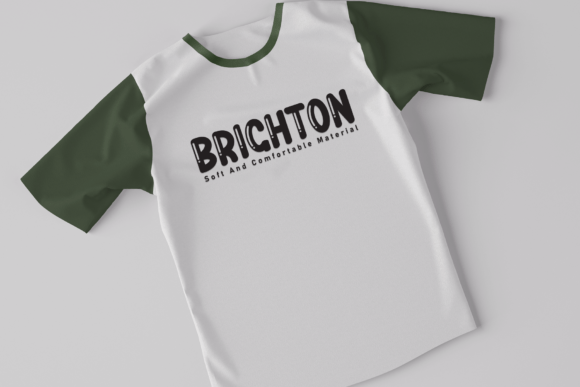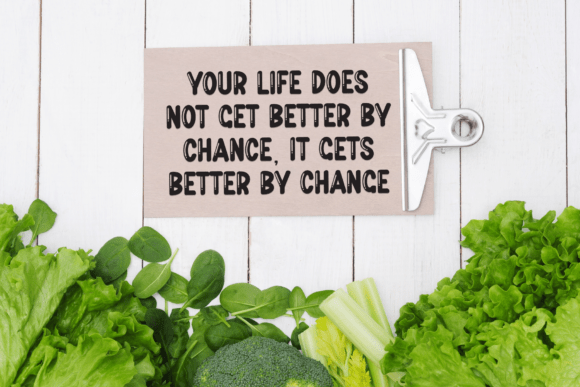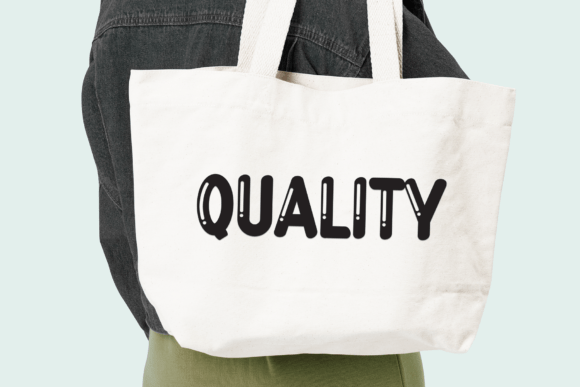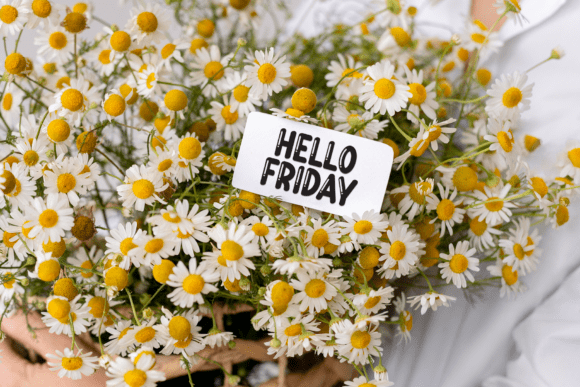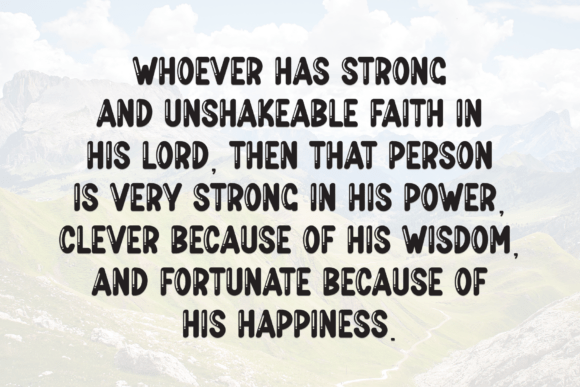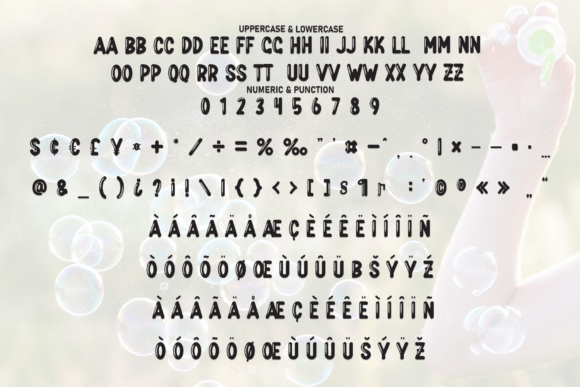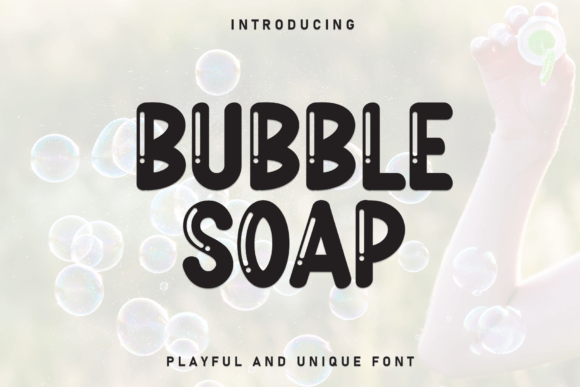
Bubble Soap Font: The Perfect Addition to Your Design Arsenal
Are you tired of using the same old fonts in your designs? Look no further than the Bubble Soap font, a neat and casual display font that radiates fun and relaxation. With its clean lines and easygoing vibe, it’s perfect for summer posters, event flyers, and playful branding. In this article, we’ll dive into the world of Bubble Soap font and explore its features, uses, and benefits for designers and crafters.
The Features of Bubble Soap Font
Bubble Soap font is a unique and refreshing typeface that brings a breezy, laid-back feel to any creative project or message. Its clean lines and simple shapes make it easy to read and understand, while its playful curves and rounded edges give it a fun and carefree vibe. Here are some of the key features of Bubble Soap font:
• Clean lines: Bubble Soap font features clean and simple lines that make it easy to read and understand.
• Easygoing vibe: The font has a relaxed and casual feel that’s perfect for summer posters, event flyers, and playful branding.
• Playful curves: The rounded edges and playful curves of the font give it a fun and carefree vibe.
• Versatile: Bubble Soap font can be used for a wide range of design projects, from posters and flyers to logos and branding.
Uses of Bubble Soap Font
Bubble Soap font is perfect for a variety of design projects, including:
• Summer posters: The font’s breezy and laid-back feel makes it perfect for summer posters and flyers.
• Event flyers: Bubble Soap font is great for event flyers, such as music festivals, beach parties, and outdoor events.
• Playful branding: The font’s fun and carefree vibe makes it perfect for playful branding, such as children’s products, toys, and games.
• Logos: Bubble Soap font can be used to create unique and memorable logos for businesses and organizations.
Benefits of Using Bubble Soap Font
There are many benefits to using Bubble Soap font in your designs, including:
• Uniqueness: Bubble Soap font is a unique and refreshing typeface that will set your designs apart from the crowd.
• Readability: The font’s clean lines and simple shapes make it easy to read and understand.
• Versatility: Bubble Soap font can be used for a wide range of design projects, from posters and flyers to logos and branding.
• Fun and playful: The font’s fun and carefree vibe makes it perfect for designs that require a playful and carefree feel.
Tips for Using Bubble Soap Font
Here are some tips for using Bubble Soap font in your designs:
• Use it for headlines: Bubble Soap font is perfect for headlines and titles, where its playful and carefree vibe can really shine.
• Pair it with other fonts: Bubble Soap font pairs well with other fonts, such as sans-serif fonts and script fonts.
• Use it in combination with images: The font’s fun and playful vibe makes it perfect for use in combination with images, such as photos and illustrations.
• Experiment with colors: Bubble Soap font looks great in a variety of colors, from bright and bold to pastel and soft.
In conclusion, Bubble Soap font is a unique and refreshing typeface that brings a breezy, laid-back feel to any creative project or message. Its clean lines, easygoing vibe, and playful curves make it perfect for summer posters, event flyers, and playful branding. With its versatility, readability, and fun and playful vibe, Bubble Soap font is a great addition to any design arsenal. So why not give it a try and see how it can elevate your designs to the next level?